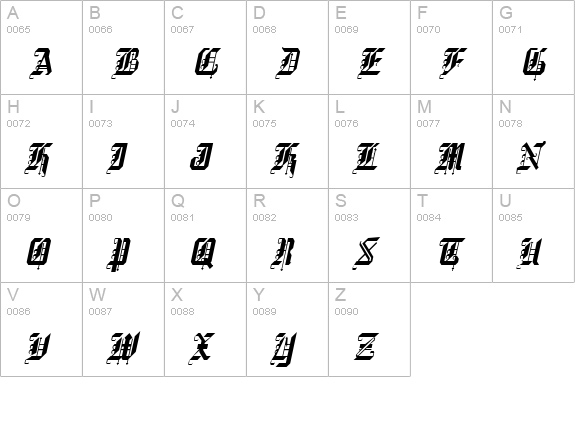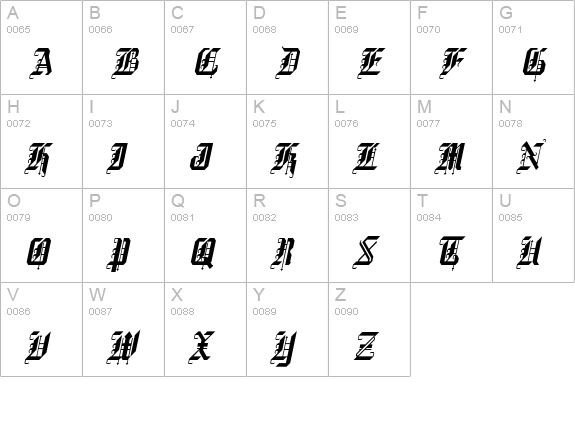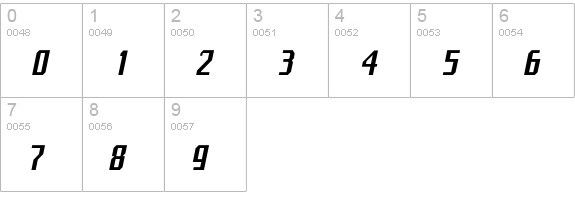
GothicCondensed Italic Font Details
GothicCondensed Italic is a distinctive, italic variant in the GothicCondensed typeface family \xE2\x80\x94 well suited to design and typography projects.
GothicCondensed Italic font is a striking and elegant typeface that exudes a sense of mystery and sophistication. The slanted, condensed letterforms give it a unique and edgy look, perfect for adding a touch of drama to your designs. Whether you're working on a poster, logo, or any other creative project, this font is sure to make a bold statement. What makes GothicCondensed Italic font even more appealing is that it is available for free download at FontsMarket.com. Yes, you read that right - this exquisite typeface can be yours at no cost! So don't miss out on the opportunity to enhance your projects with this stunning font that combines Gothic influences with a modern twist. Download GothicCondensed Italic today and let your creativity soar.